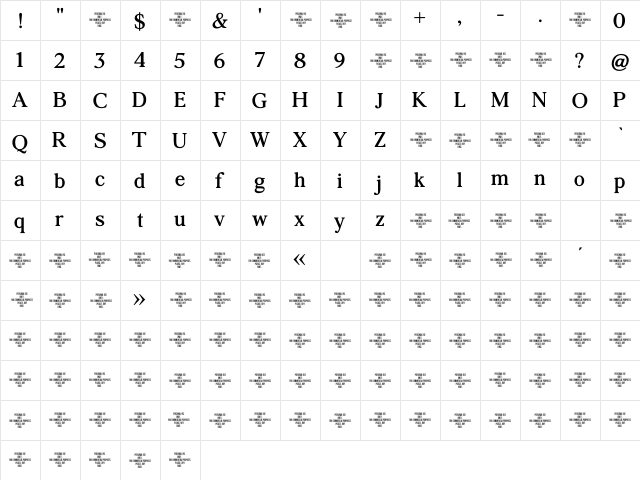
Agatho Bold
| Designer | Andrii Shevchyk |
Design Context for Agatho Typeface
Agatho takes a measured approach to typography — its balanced proportions and neutral character make it a reliable workhorse for both digital and print work. Its bold stroke weight gives it real presence on the page.
Pro Tip: Pair Agatho with a font of contrasting weight or personality to build a more expressive typographic hierarchy.